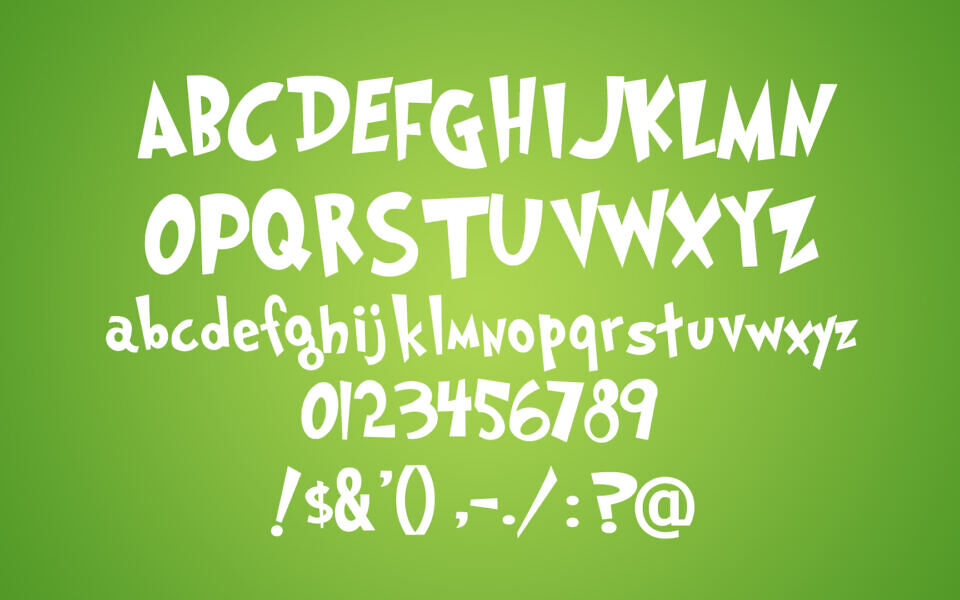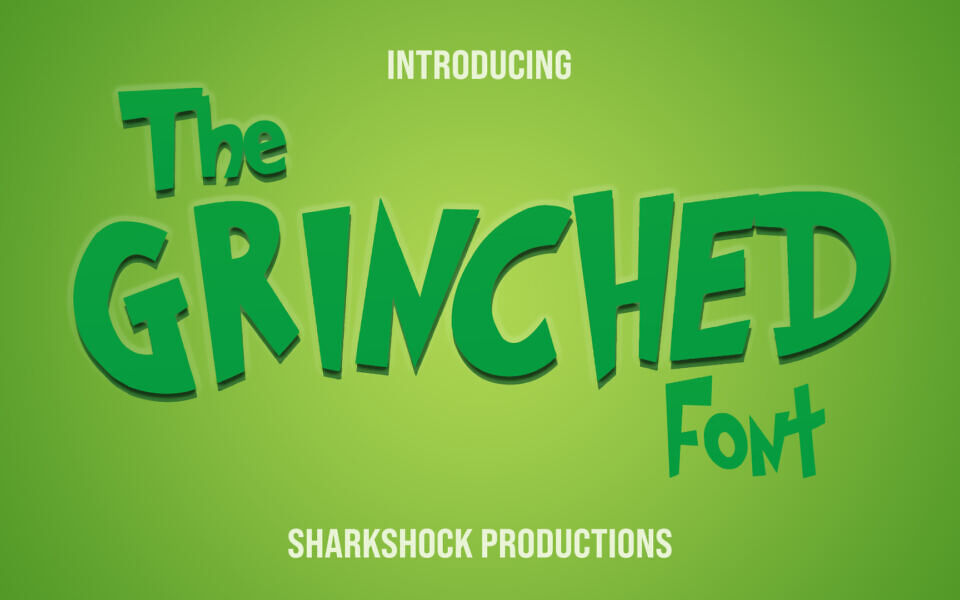
Grinched Font
Grinched is a playful cartoon-style display font inspired by the Grinch movie logo. Its quirky, hand-drawn look features irregular, jagged edges and slightly tilted characters, giving it a lively and whimsical feel. Bold and expressive, it’s perfect for logos, comics, children’s projects, and festive designs.